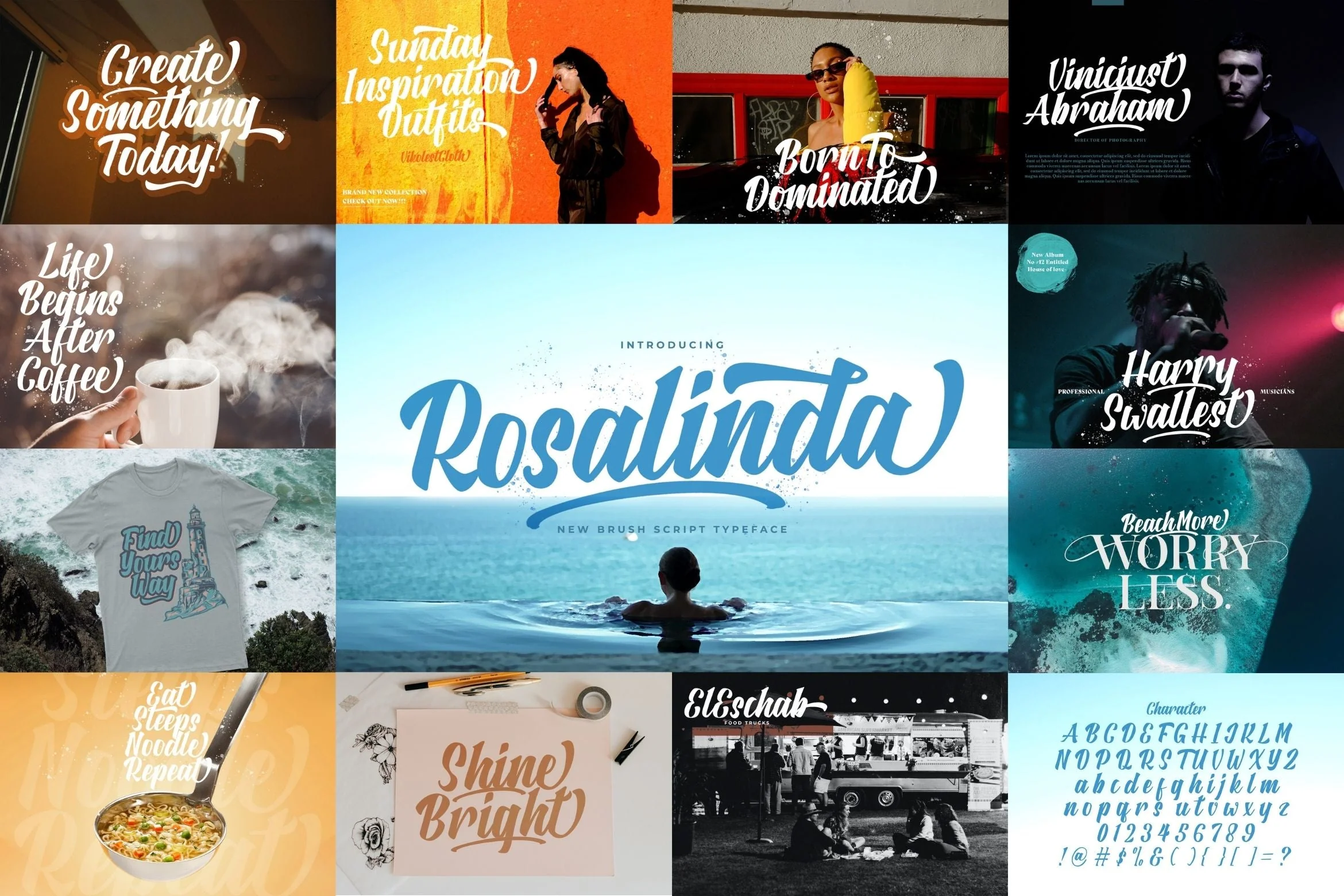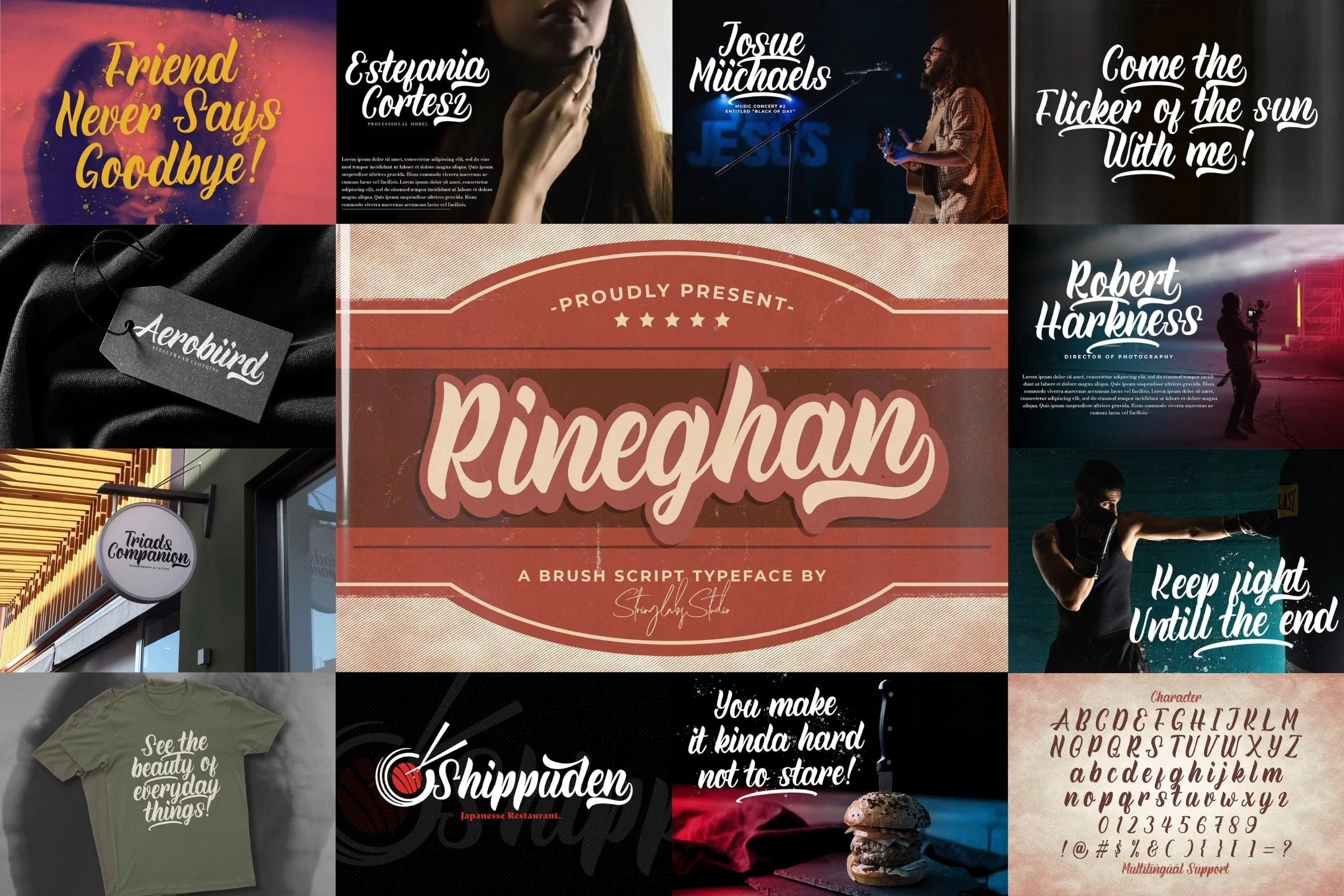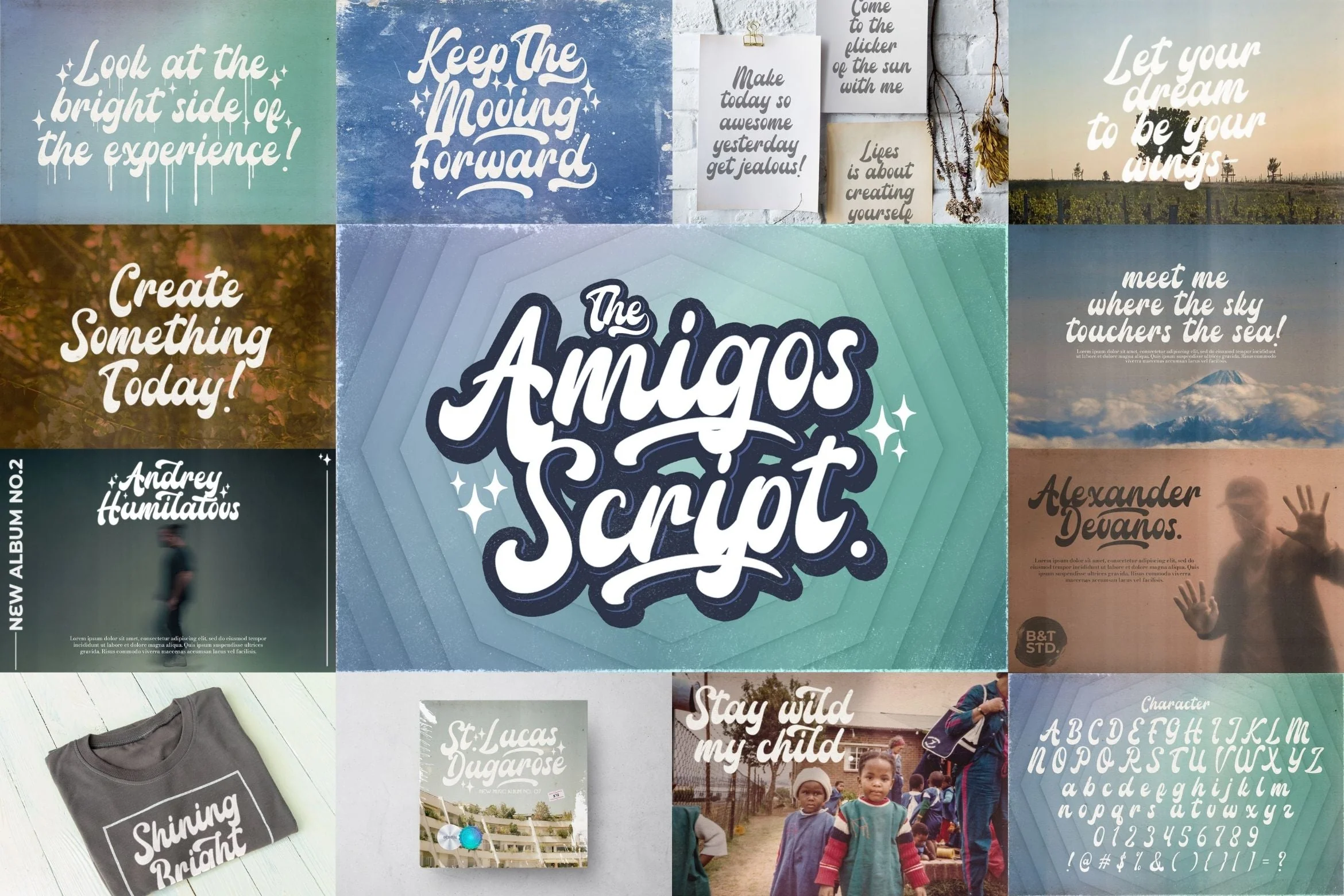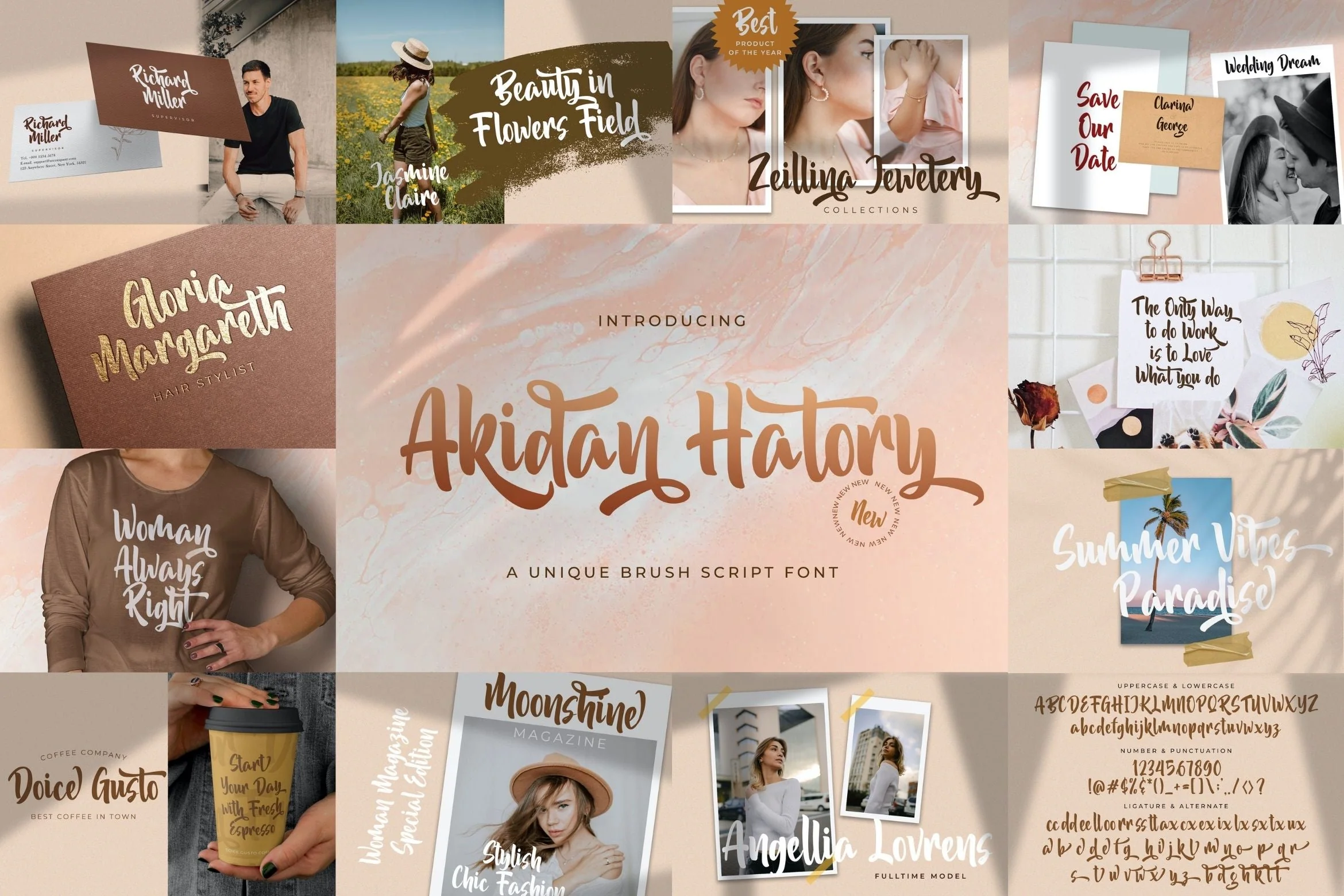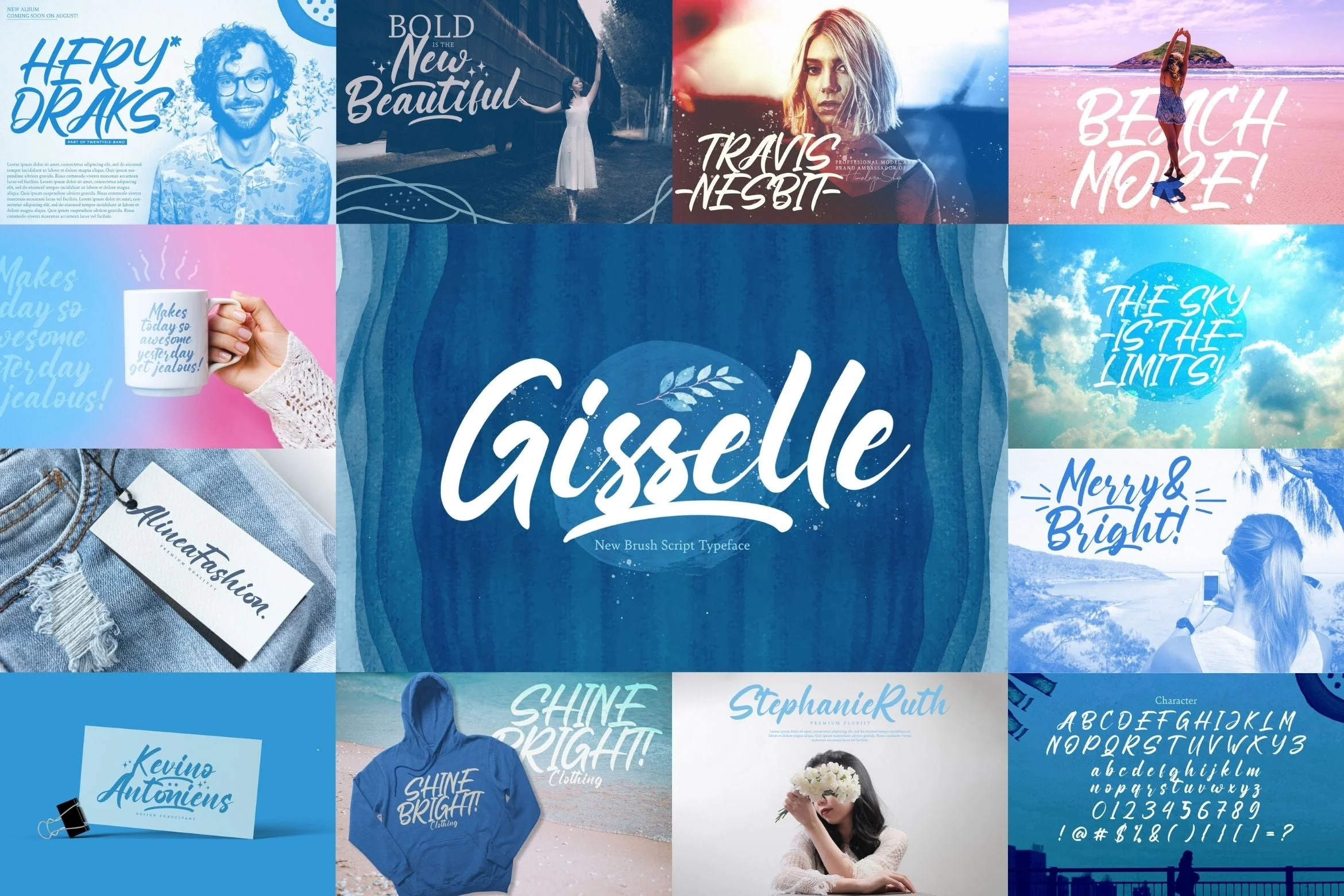
Bold Script Font Bundle Vol 2
Bold Script Font Bundle Vol 2 is a beautiful retro and vintage styled script font. This font bundle contains 8 high quality bold script font, It reads as strong, confident, and dynamic and can add tons of nostalgic character to your designs, and also that will look particularly adept when used in logos, branding, packaging design, and much more. It has beautiful and well balanced characters and as a result, it matches a wide pool of designs. Add it to your most creative ideas and notice how it makes them come alive!
1. Gisselle
2. Aylafs
3. Akidan Hatory
4. Bethany Kibang
5. Amigos Script
6. Rineghan
7. Rosalinda
8. Roulette